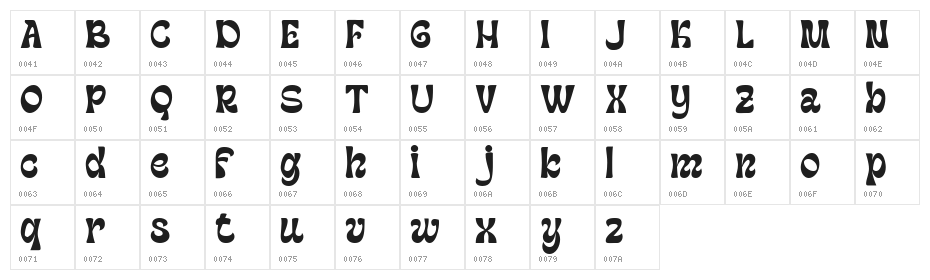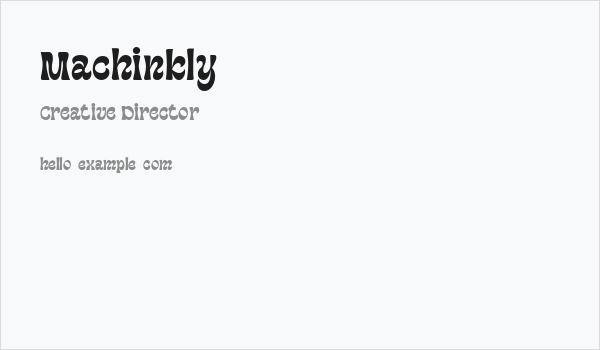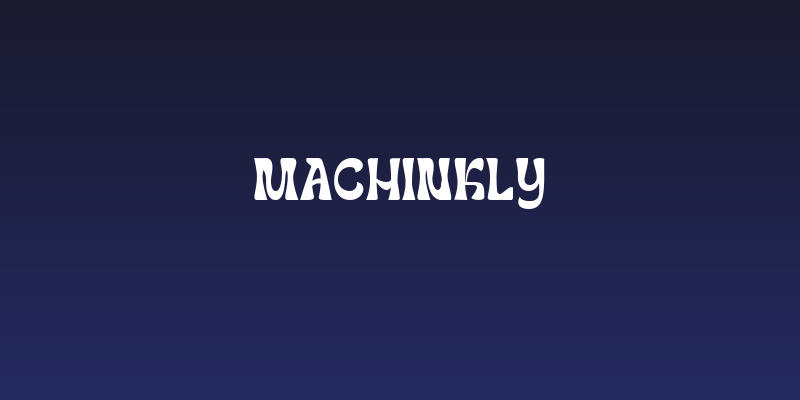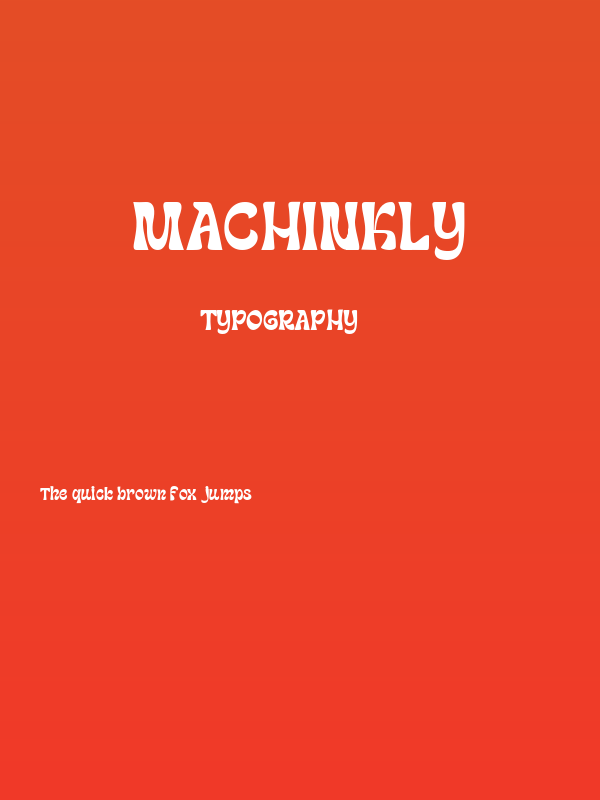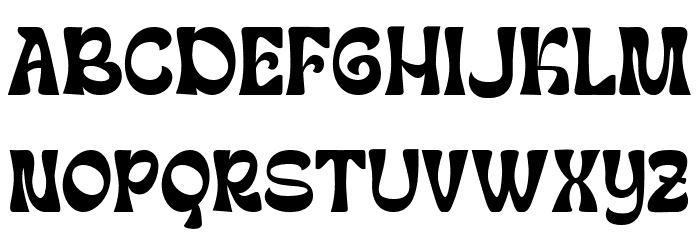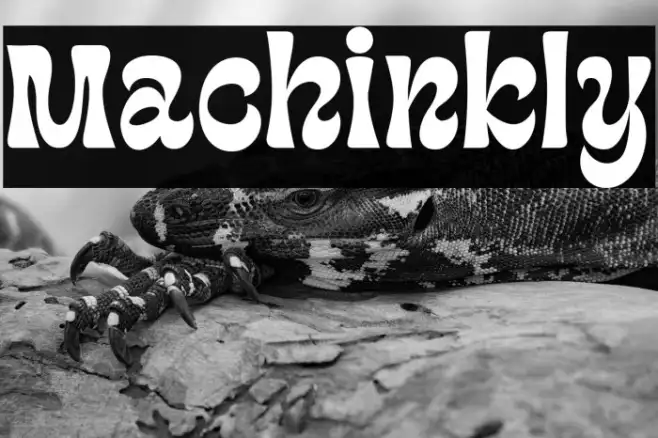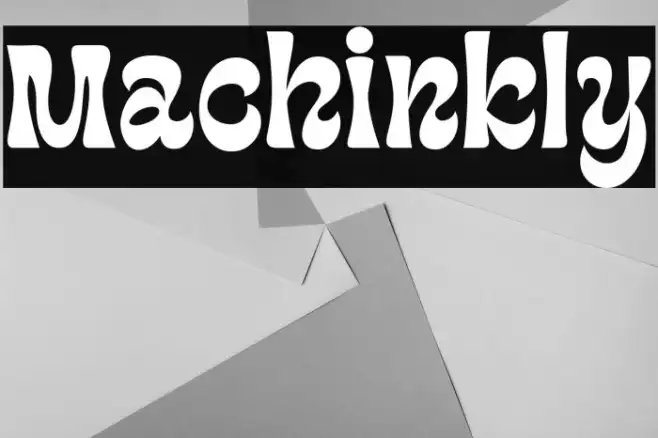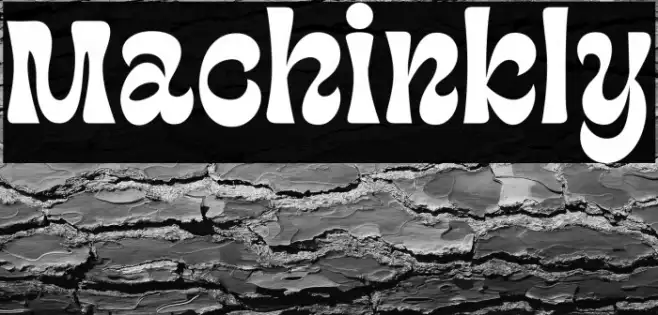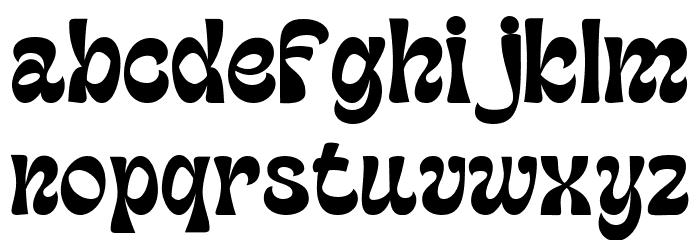
Machinkly Font
Machinkly Description
This font features a bold and playful design with exaggerated curves and a whimsical style. The characters are highly stylized, with thick strokes and unique shapes that give it a distinctive and eye-catching appearance. The uppercase letters are particularly bold, while the lowercase letters maintain a consistent style, adding a touch of fun and creativity. The font's overall look is reminiscent of retro or vintage designs, making it suitable for projects that require a touch of nostalgia or a bold statement.
| Proposed Projects | Ideal for retro-themed posters, playful branding, children's book covers, and creative advertising campaigns. |